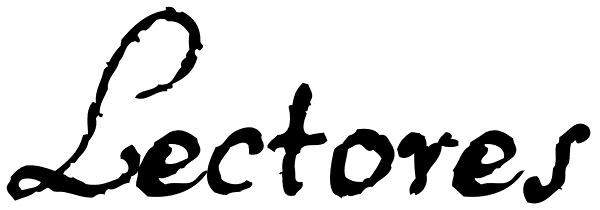
Lectores
Lectores is based on 18th century chronicles of Benedictine monastery manuscript, so it is definitely oldish, rough but elegant. Thanks to many ligatures and alternate characters it is varied handwriting font. Lectores is decorative, it works nice...